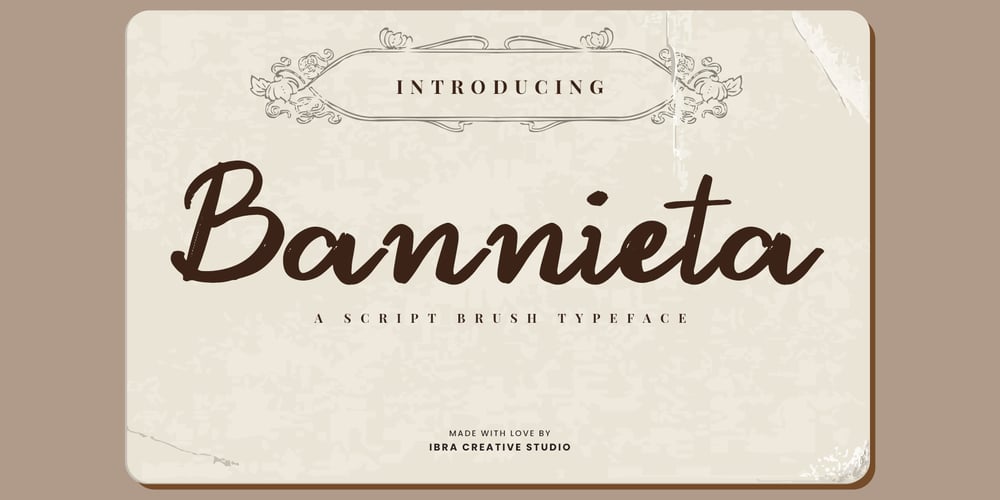
Bannieta Font Family was designed by Roisatul Azizah and published by IbraCreative. Bannieta contains 1 styles and family package options. Bannieta – A Script Brush TypefaceBannieta, a captivating script brush typeface, intertwines fluidity with bold strokes to create a harmonious dance of letters. With each character, Bannieta exudes a sense of free-spirited elegance, capturing the essence of hand-brushed calligraphy. The strokes flow seamlessly, emulating the organic movement of a brush on paper, and the fine details within each letter reflect a meticulous craftsmanship. Bannieta is not just a typeface; it’s a visual symphony, perfect for projects that demand a touch of artistic flair. Whether adorning invitations, signage, or branding materials, Bannieta lends a distinct and sophisticated charm, turning any piece of text into a visual masterpiece.Bannieta is perfect for branding projects, logo, wedding designs, social media posts, advertisements, product packaging, product designs, label, photography, watermark, invitation, stationery, game, fashion and any projects.Fonts include multilingual support for; Afrikaans, Albanian, Czech, Danish, Dutch, English, Estonian, Finnish, French, German, Hungarian, Italian, Latvian, Lithuanian, Norwegian, Polish, Portuguese, Slovak, Slovenian, Spanish, Swedish.